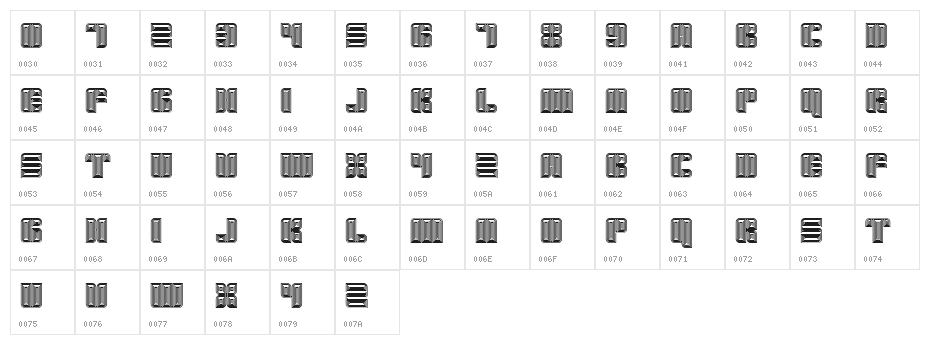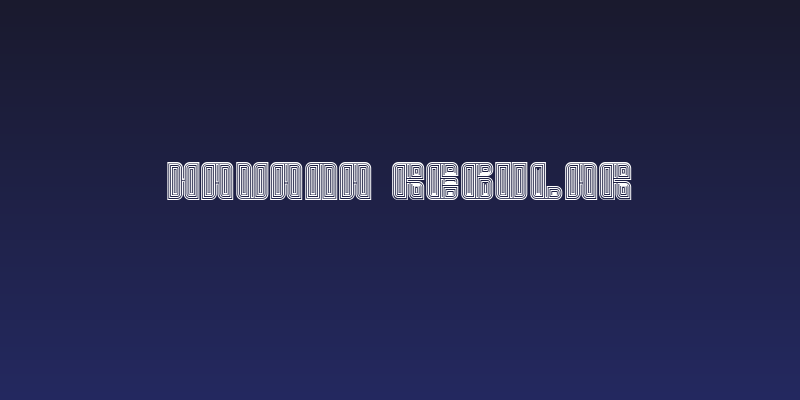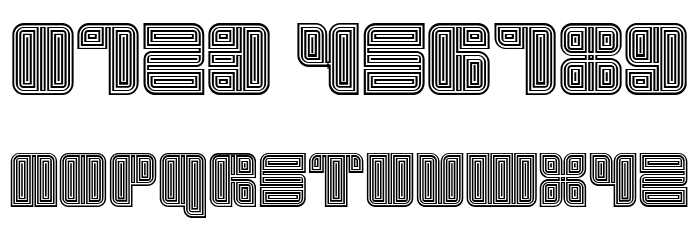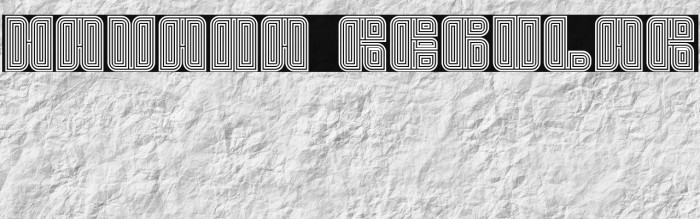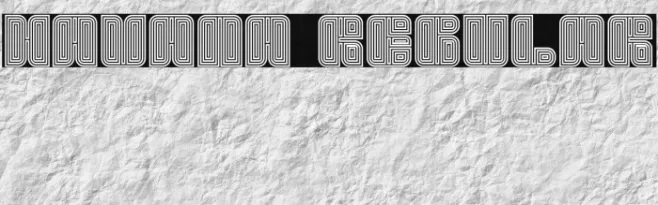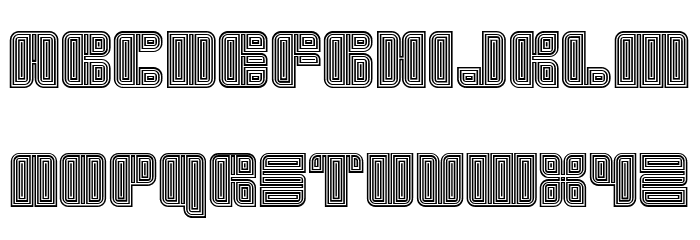
Havana Regular Font
Havana Regular Description
This font features a unique and intricate design with a maze-like pattern within each character. The letters are bold and decorative, with a distinct geometric style that creates a sense of depth and complexity. Each character is composed of multiple parallel lines that form a cohesive and visually striking pattern. The font maintains a consistent structure across uppercase, lowercase, numbers, and special characters, making it versatile for various design applications. Its boldness and decorative nature make it ideal for projects that require a standout visual element.